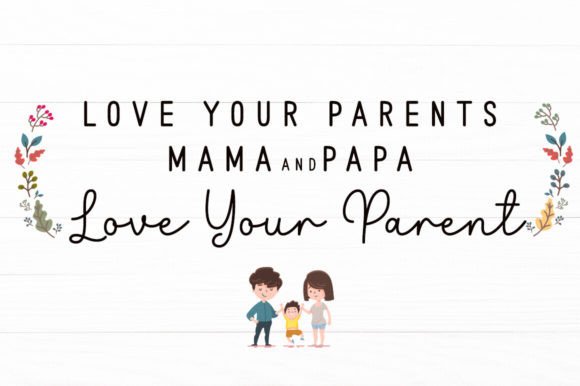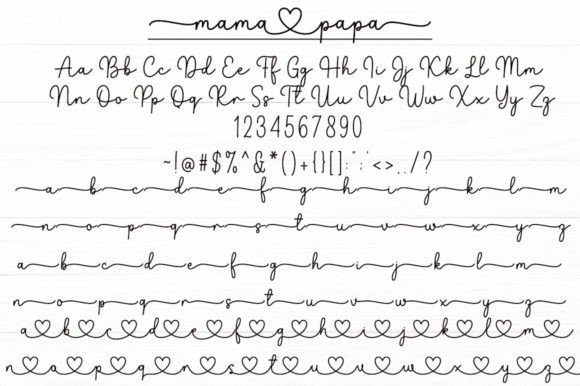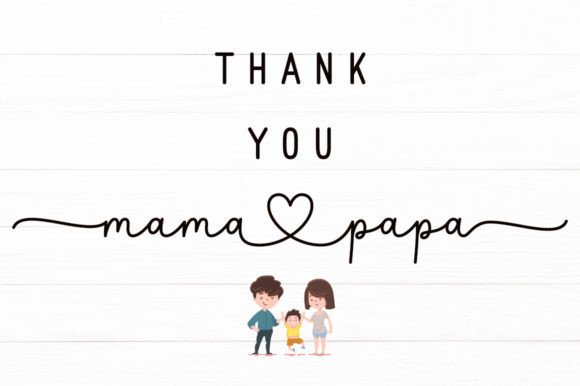
Mama Papa Duo Font
Introducing the delightful Mamapapa Duo, a beautifully intertwined set of cursive handwritten fonts. This pair of fonts carries a soft and delicate appeal, poised to effortlessly enhance a spectrum of design aesthetics. Imbued with a sprightly, romantic allure, it becomes a quintessential tool for every creative project. Whether attempting to establish your brand, craft a striking logo, design wedding invitations or heartfelt greeting cards, the Mamapapa Duo font is guaranteed to grace your work with elegance. Turn heads in the fashion industry with compelling lookbooks, or capture attention with engaging marketing promotions. Create designs that embody class, without losing the effortless and casual charm — all using the Mamapapa Duo.